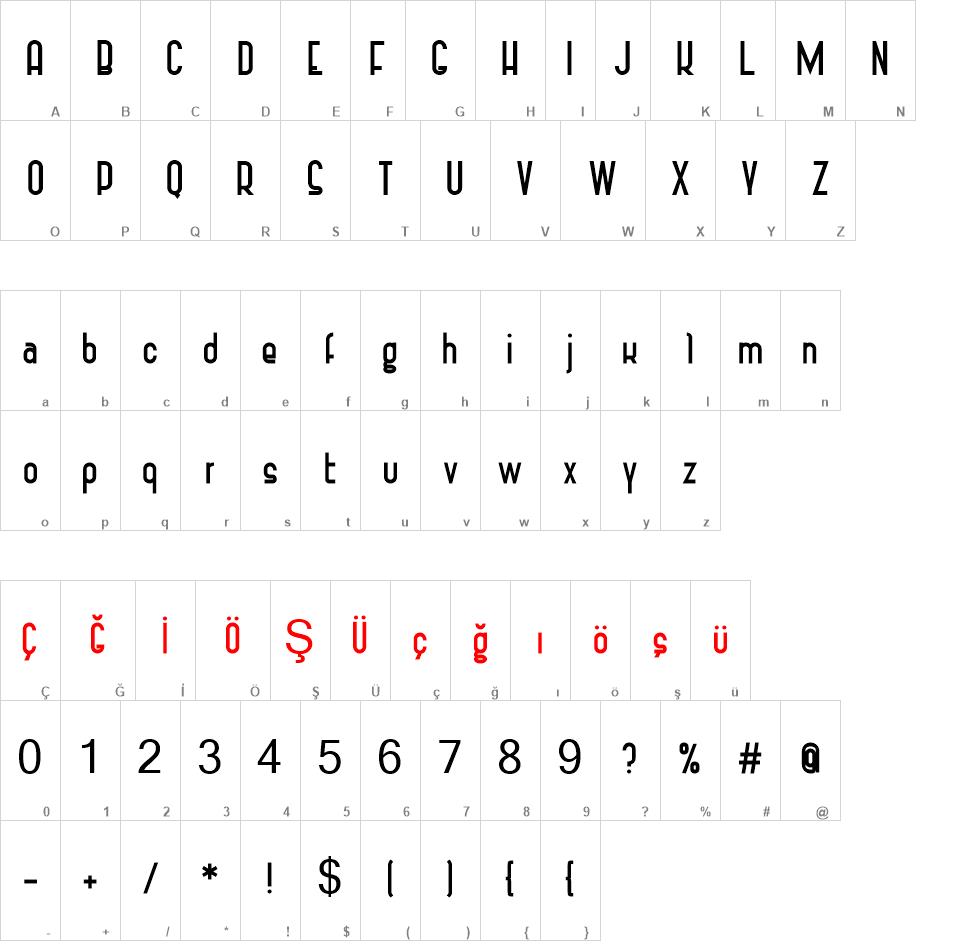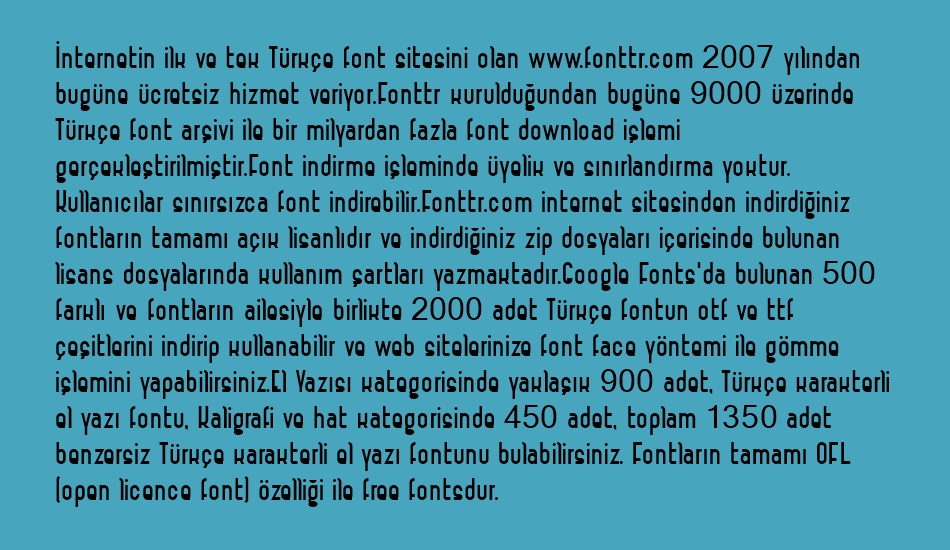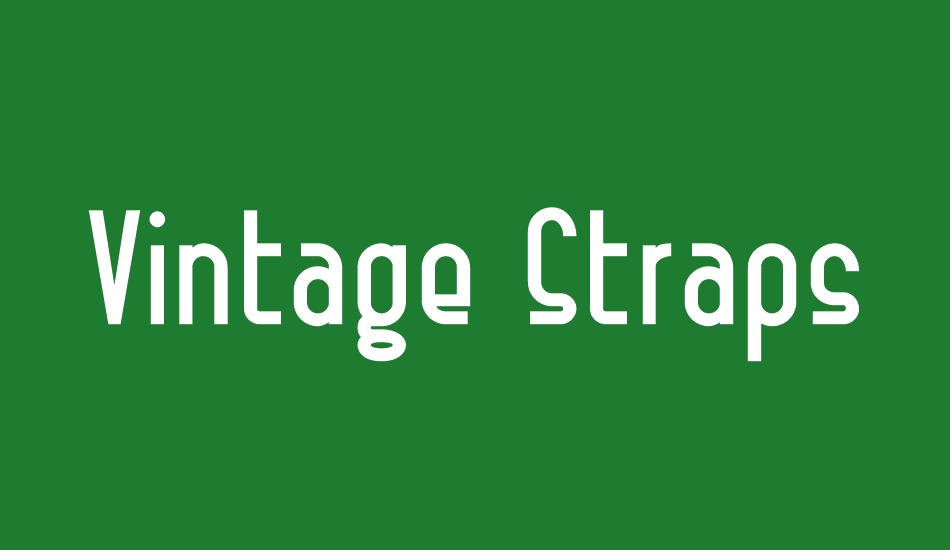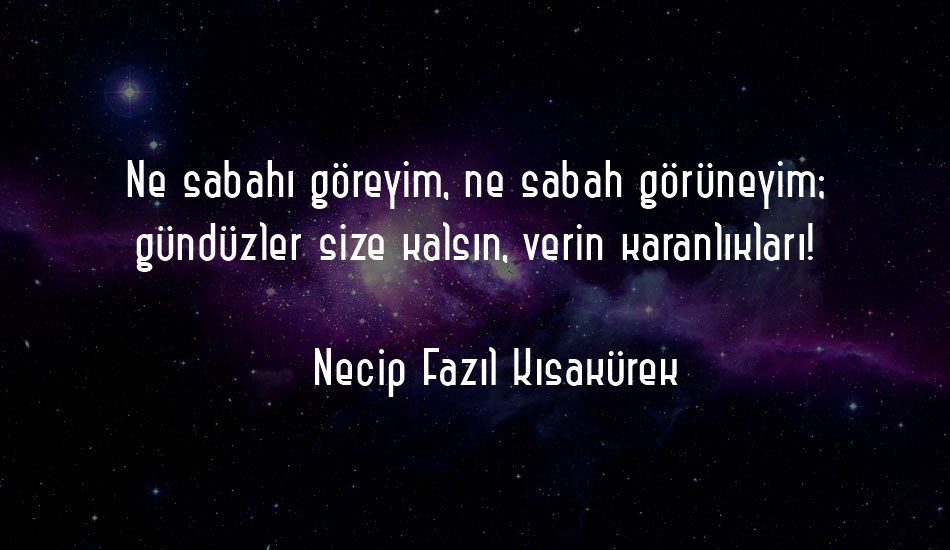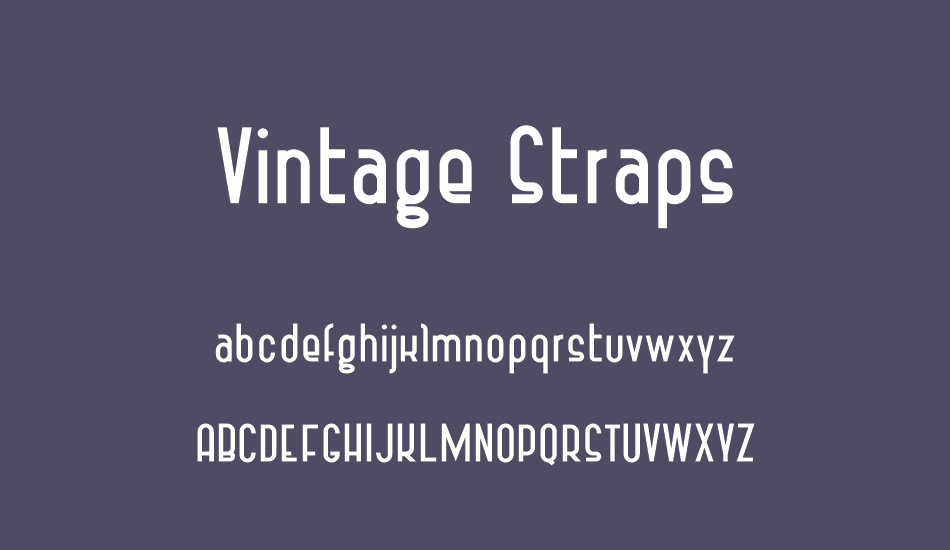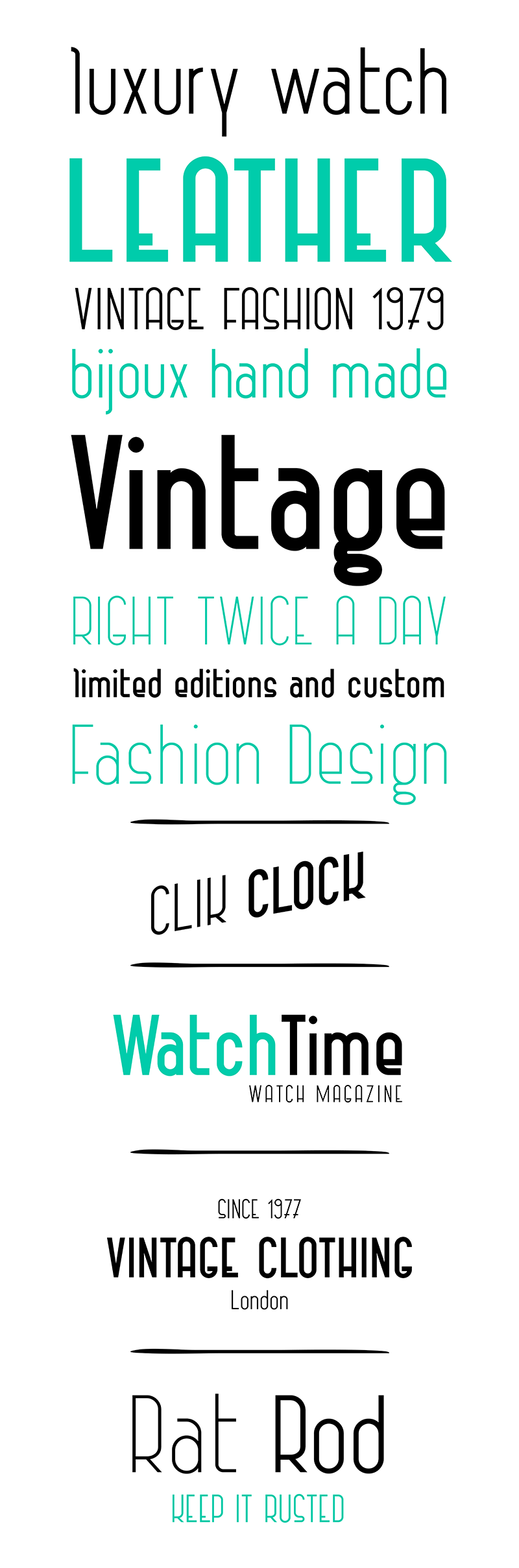
Vintage Straps font
Vintage Straps
Vintage Straps is a Display Decorative Font that come after the creation of the logo for the Italian company -RB- which manufacturing “Vintage Leather Straps”.
The Goal is to communicate a Contemporary Vintage feel; to obtain this result the process started with a modern Geometric Font, which was customized with low height for Crossbars and condensed look to mimic the Lettering of the first decades of 20th century.
Vintage Straps is good for clear messages with a certain character, it is suitable for newspaper headline, newsletter, billboards and advertisings.
Vintage Straps Family:
Vintage Straps Regular
Vintage Straps Bold
Vintage Straps Light